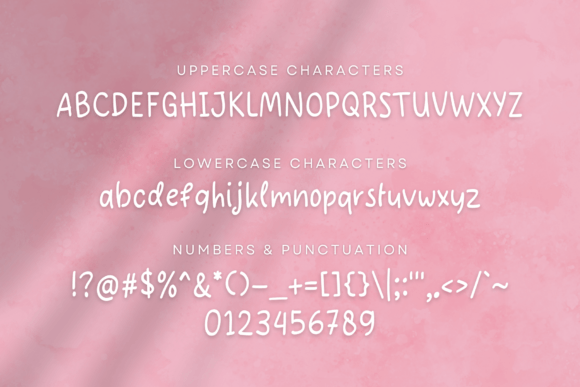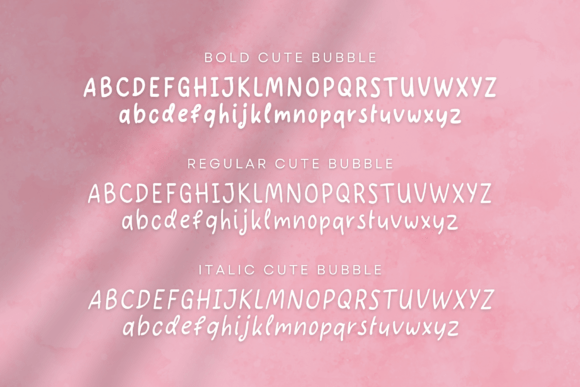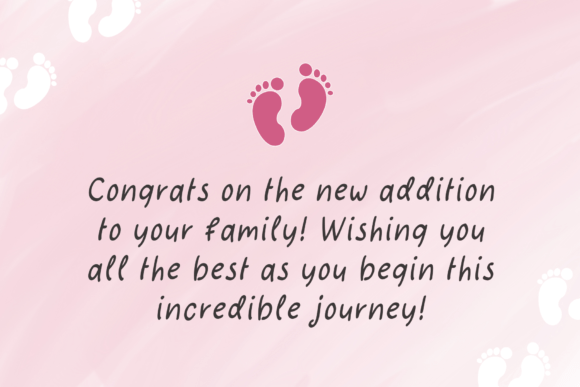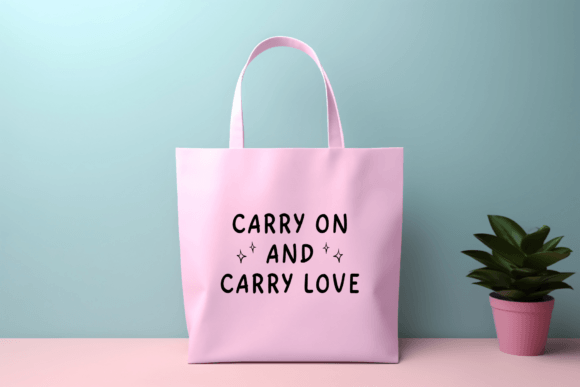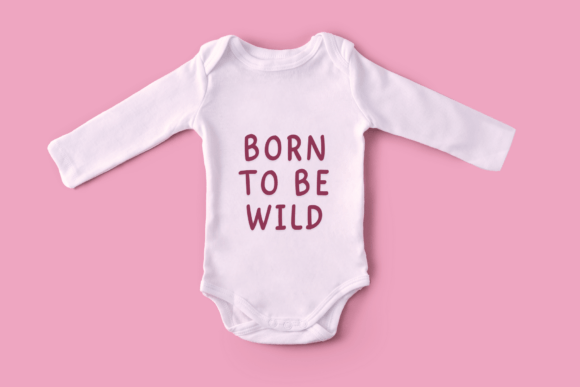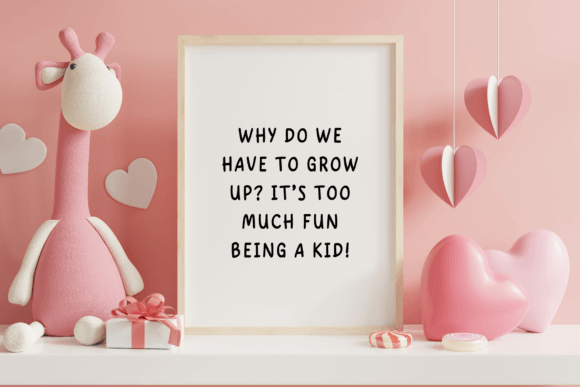
The Joy of Designing with Cute Bubble Font
Have you ever been brainstorming a new design project and suddenly feel the urge to add a dash of whimsy and playfulness? You know, that moment when you just want to inject some personality and charm into your work? That’s when the magic happens, and the right font can make all the difference.
Enter Cute Bubble Font, the delightful handwriting font that brings a smile to your designs. With its round, cheerful letters and whimsical charm, Cute Bubble is perfect for creatives looking to add a fun and lighthearted touch to their projects. Whether you’re designing a children’s book, a greeting card, or a social media post, Cute Bubble Font is the perfect companion to help you convey your message with a playful and bubbly vibe.
As a designer, you know how valuable it is to have the right tools at your disposal. And with Cute Bubble Font, you’ll be able to create designs that are not only visually appealing but also convey a sense of fun and approachability. So why not give it a try and see how Cute Bubble Font can bring a touch of magic to your next design project?
Cute Bubble Font Key Features
- Font Family: Cute Bubble is a unique, hand-drawn font with a playful and whimsical design, perfect for creating eye-catching and child-friendly content.
- Character Set: The font includes a wide range of characters, including uppercase and lowercase letters, numbers, punctuation marks, and special characters, ensuring comprehensive usage.
- Unique Characteristics: Cute Bubble features rounded shapes, gentle curves, and soft lines, making it ideal for creating a friendly and approachable atmosphere in branding, advertising, and editorial design.
Cute Bubble Font Review
I have to say, I was immediately drawn to the Cute Bubble Font when I first saw it. The playful, bubbly style is sure to put a smile on anyone’s face! ✨ Here are some of its standout features:
- The font is super versatile and can be used for a wide range of applications, from logos to social media graphics.
- The unique, rounded design makes it perfect for creating a whimsical or playful atmosphere.
- The font is relatively easy to read, even in smaller sizes.
However, as with any font, there are some limitations to be aware of: ⚠️
- The font may not be the best choice for formal or professional applications, as it can come across as a bit too playful or childish.
- The font can be a bit difficult to customize or edit, which may limit its use in certain situations.
Overall, I think the Cute Bubble Font is a great choice for anyone looking to add a touch of whimsy or playfulness to their design. While it may not be suitable for every application, it’s definitely a fun and unique font that’s sure to stand out.
Tips for Getting the Most Out of Cute Bubble Font
To get the most out of Cute Bubble Font, try using it in combination with other playful fonts and colors. You can also experiment with different font sizes and styles to create a unique look.
Cute Bubble Font is perfect for:
- Wedding stationery and decorations
- Gift card and voucher designs